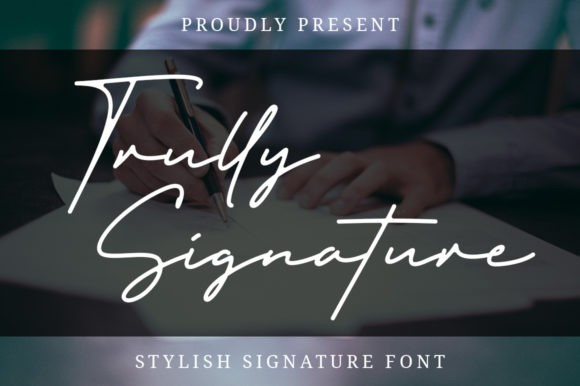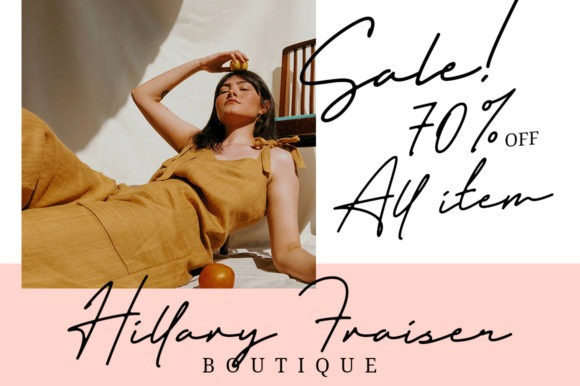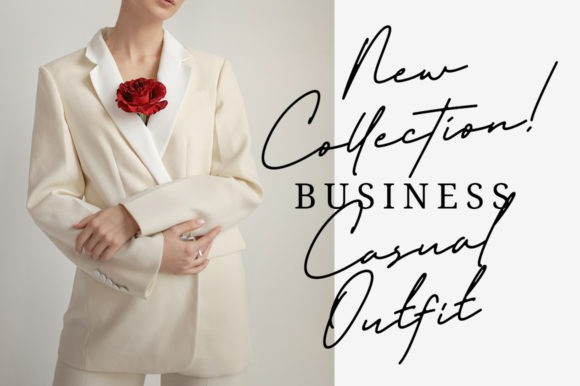
Trully Signature Handwritten Font
Trully Signature is a flowing handwritten font, described by an elegant touch, perfect for your favorite projects. Fall in love with its incredibly distinct and timeless style and use it to create spectacular designs! Fall in love with its incredibly versatile style and use it to create gorgeous wedding invitations, beautiful stationary art, eye-catching social media posts, and much more!